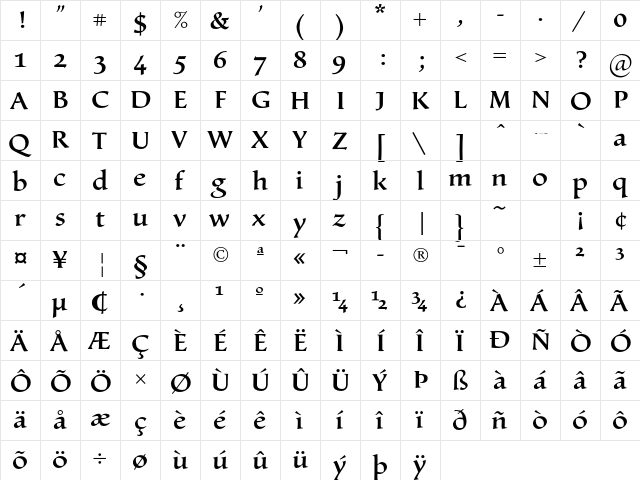
Byngve LT Std Bold Font Preview
Byngve LT Std Bold
Byngve LT Std Bold Font Details
| Foundry | Linotype GmbH |
| Designer | Bo Berndal |
Design Context for Byngve LT Std Typeface
Byngve LT Std is a composed and adaptable typeface that performs quietly and consistently across a wide range of design contexts. Its bold stroke weight gives it real presence on the page.